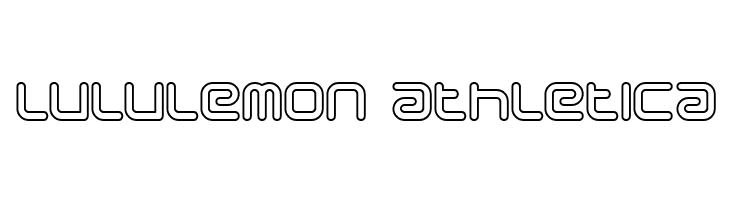
Take Care Font
- Font: Take Care
( Fonts by dustBUST - Andreas Nylin )
A futuristic, geometric outline font with rounded edges and consistent line thickness.